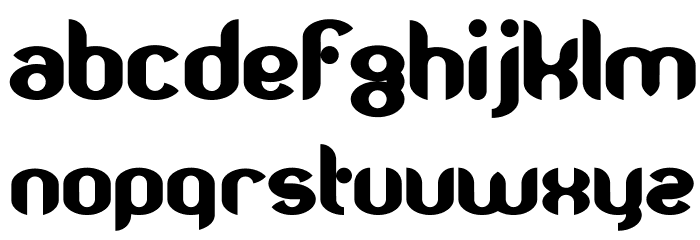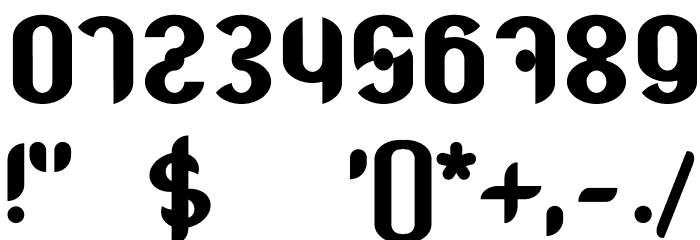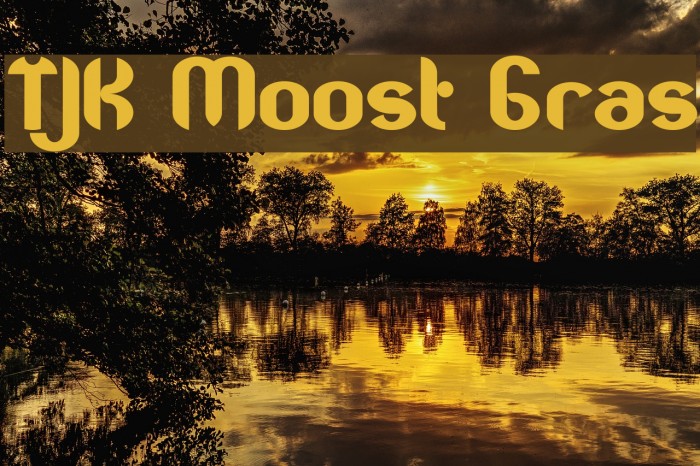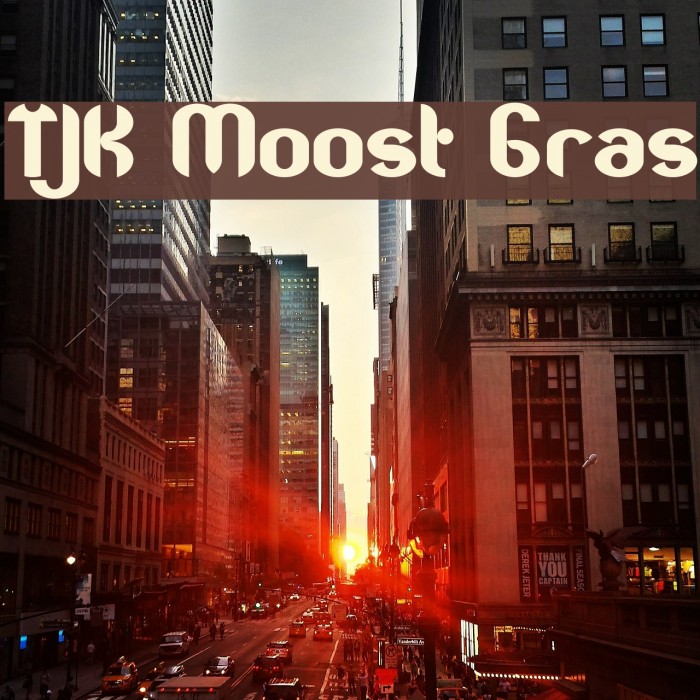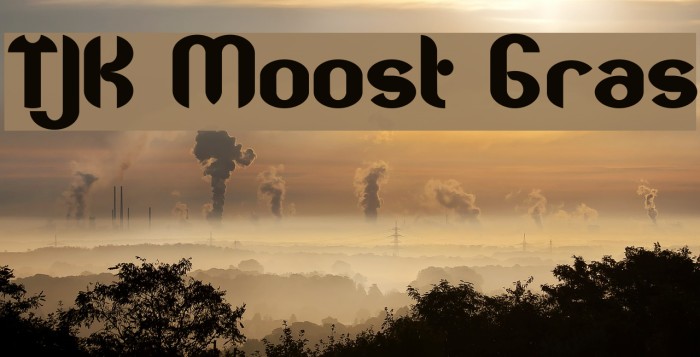
TJK Moost Gras Font
This font features a bold and playful design with rounded edges and a distinct geometric style. The characters are thick and have a unique, almost stencil-like appearance with cut-out sections that add a modern twist. The uppercase and lowercase letters maintain a consistent weight, providing a cohesive look. The numbers and special characters follow the same design principles, ensuring uniformity across the font. Its bold presence makes it suitable for attention-grabbing designs, while the rounded forms add a friendly and approachable feel.
A bold, geometric font with rounded edges and a playful, modern style.
- Proposed Projects: Ideal for branding, posters, headlines, and any project needing a modern, bold statement.